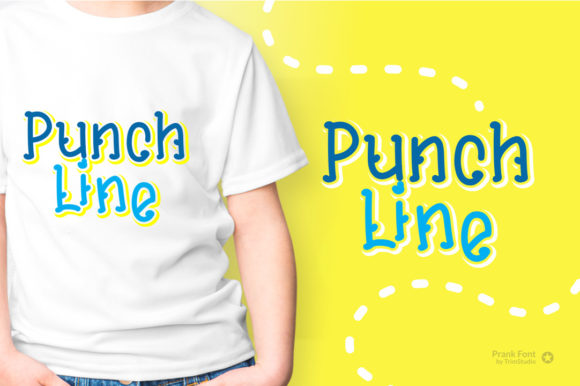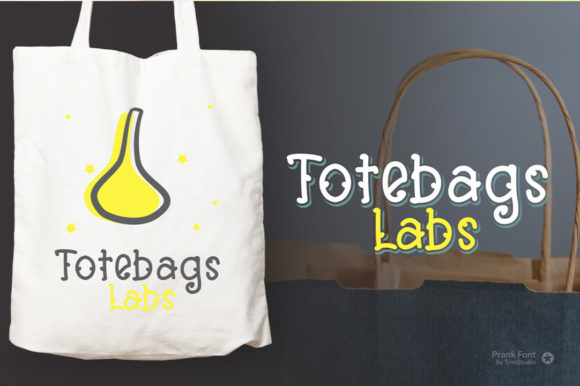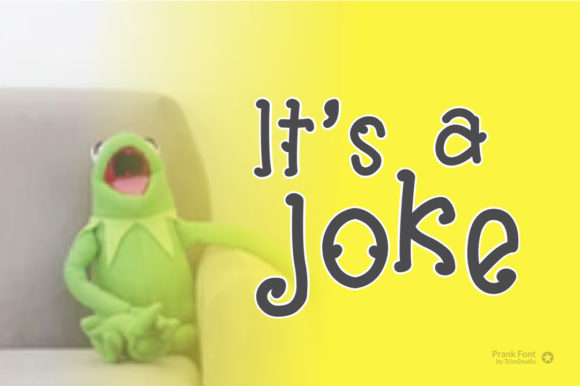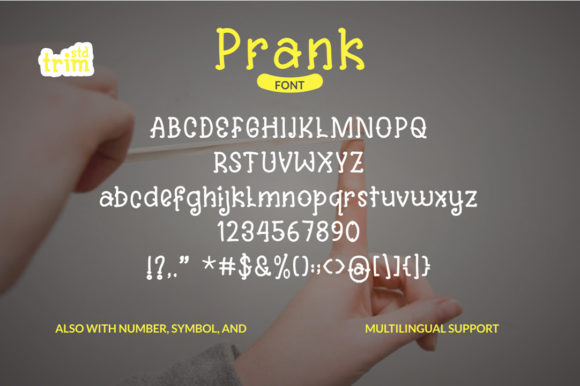
Introduction to Prank Font
Who hasn’t found themselves scribbling out ideas for a creative project on a napkin or the back of a receipt? That moment of inspiration, where the world around us fades away and all that’s left is the excitement of bringing our vision to life. For designers, it’s a moment we all know and cherish. And when that idea starts to take shape, having the right design resource can make all the difference.
Enter the Prank Font, a quirky display font that’s sure to bring a smile to your face. With its unique look and feel, this original font is perfect for adding a touch of personality to your next project. Whether you’re working on a letterhead, title, or stationery, Prank Font is the perfect addition to your design arsenal.
Key Features of Prank Font
- Unique, playful design perfect for creative projects and humorous content.
- Perfect for adding a touch of humor and whimsy to your design, making it a great addition to any creative project.
Honest Review: Prank Font
I recently stumbled upon the Prank Font, and I’m excited to share my thoughts with you. As a designer, I’m always on the lookout for unique and creative design resources to enhance my projects.
- ✨ High-quality typography: The Prank Font offers a range of stylish and modern fonts that can elevate any creative project.
- ⚠️ Limited font styles: While the Prank Font offers a range of fonts, the selection is not as extensive as some other design resources.
Overall, I’m impressed with the Prank Font’s unique style and versatility. While it may not be the most extensive design resource, it’s an excellent addition to any designer’s toolkit, especially for personal projects or creative pursuits.
Prank Font
Prank Font is a unique design resource that can add a playful touch to your creative project. With its transparent background and high-quality design, you can use it to create eye-catching graphics, posters, and more.
Tips for Getting the Most Out of Prank Font
To get the most out of Prank Font, use it in combination with other design elements, such as images and graphics, to create a visually appealing design. You can also experiment with different font sizes and styles to add emphasis to your text.
Common Use Cases for Prank Font
Prank Font is commonly used in social media graphics, posters, and flyers. It’s also a great choice for creating eye-catching titles and headings for your blog or website.